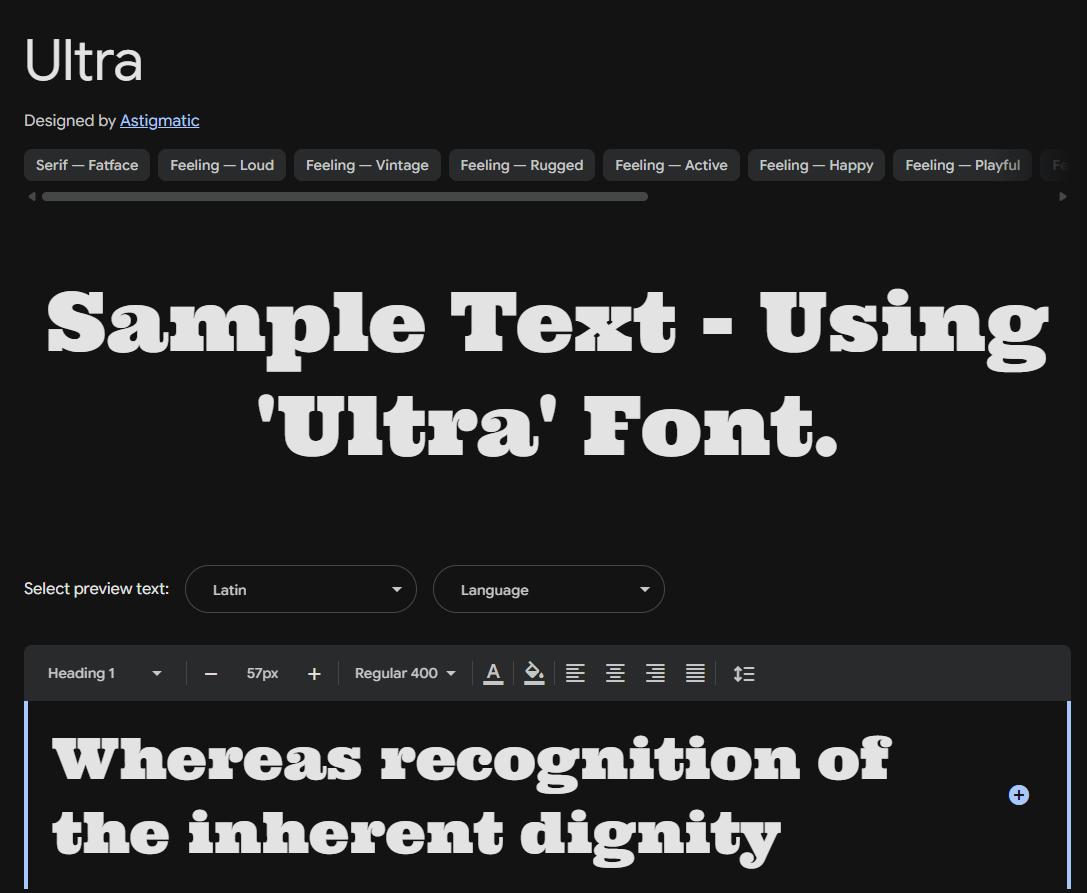
Defined by its muscular, wood-type aesthetic, Ultra-a single-weight masterpiece from Astigmatic-reimagines the high-contrast Clarendon lineage through a modern digital lens optimized for maximum visual impact. This slab serif display face utilizes an extreme stroke-to-counter ratio, characterized by massive x-heights and bracketed serifs that maintain legibility even as the negative space within its glyphs approaches its physical limit. By synthesizing the architectural density of 19th-century Egyptian styles with clean vector geometry, Ultra serves as a high-density typographic anchor, offering developers a performant, single-style solution that commands the viewport through bold vertical stress and substantial slab terminals.
The Ultra font family manifests as a quintessentially loud and high-contrast Fatface serif, channeling the rugged, wood-block aesthetics of 19th-century commercial printing into a versatile digital display face. Its architectural construction utilizes extreme stroke modulation and heavy slab-inspired terminals to project an active, high-impact presence that feels simultaneously stiff and business-like in its structural integrity, yet inherently playful and childlike through its generous x-heights and rounded counter-forms. By bridging the gap between vintage sincere industrialism and a happy, cute vibrancy, this typeface functions as a semantically rich tool for designers needing to balance a rugged, vintage gravitas with a modern, playful accessibility.
The Ultra typeface, a high-intensity slab serif by Astigmatic inspired by heavy woodblock aesthetics, is fundamentally ill-suited for long-form editorial body text or high-density technical manuals where sustained legibility and reading stamina are critical requirements. Its massive stroke weight and severely restricted internal counters create significant "fill-in" effects and optical crowding at standard text sizes, which compromises character recognition and violates basic WCAG accessibility guidelines for text clarity in digital interfaces. Furthermore, because Ultra possesses an extreme x-height and dramatic slab serifs that lack optical sizing adjustments, it generates excessive visual noise in complex typographic hierarchies, making it a poor choice for medical labeling, legal disclosures, or financial spreadsheets where the distinction between similar glyphs must be instantaneous and unambiguous.
If you need a sharp alternative to the Ultra font, DM Sans offers a modern geometric look that ensures your headings remain clear and professional. You can also try RocknRoll One for a more rhythmic and bold personality that grabs attention without losing visual impact.
Ultra pairs exceptionally well with vintage woodblock aesthetics and high-impact poster designs that require a bold, theatrical presence. Its slab-serif architecture, featuring an exaggerated x-height and heavy stroke contrast, aligns perfectly with brutalist design frameworks and retro-industrial layouts.
Ultra is generally unsuitable for long-form body text due to its extreme weight and decorative slab serifs which hinder readability in dense blocks. The font's ultra-bold weight leads to internal counters closing up and a high "blackness" ratio, resulting in significant eye fatigue when processed at standard 10pt or 12pt body dimensions.
Neutral, geometric sans-serifs like Montserrat or Open Sans provide a necessary visual balance to Ultra's heavy, decorative character. Utilizing a high-kerning, low-stroke-weight companion ensures a hierarchical contrast that mitigates the visual noise generated by Ultra's thick stems and slab terminals.
This typeface loses significant legibility at small point sizes because its internal counters are extremely narrow and tend to disappear. Quantitative analysis of its glyph geometry reveals that the low aperture values cause letters like 'e' and 'a' to appear as solid blocks below 16px on standard DPI screens.
Ultra excels in high-contrast environments, such as white text on dark backgrounds, where its massive silhouettes remain sharp and commanding. The font's robust optical weight benefits from the halation effect in high-contrast digital displays, ensuring that the thick slab serifs maintain structural integrity without vibrating against vibrant background hues.
Ultra is highly recommended for logo designs that seek to communicate strength, tradition, or a bold, larger-than-life brand identity. Because its vector paths feature distinct, sharp-angled slab serifs, it provides excellent scalability and remains recognizable even when reduced to a 32x32 pixel favicon.
For maximum impact in headlines, Ultra often requires slightly tighter letter spacing to create a cohesive, masonry-like visual block. Adjusting the CSS letter-spacing to approximately -0.02em helps prevent the gappy appearance caused by its wide serifs and creates a more unified typographic texture for display usage.
Ultra works effectively in all-caps compositions when used sparingly for short headings or impactful call-to-action buttons. The uniform cap-height and consistent stroke thickness of the uppercase set create a powerful horizontal rhythm that reinforces the wood-type heritage of the typeface.
While Ultra is great for hero sections, it is rarely used for functional UI elements like menus or system alerts where clarity is paramount. Performance testing shows that Ultra's high file size and heavy rendering load can negatively impact Cumulative Layout Shift scores if not properly optimized via WOFF2 compression.
Ultra conveys a mood of confidence, nostalgia, and immense physical power, reminiscent of old-school circus posters and nineteenth-century advertising. Its design evokes the "Fat Face" style of the early 1800s, utilizing extreme modulation between thick and thin strokes to create a sense of dramatic urgency and historical weight.